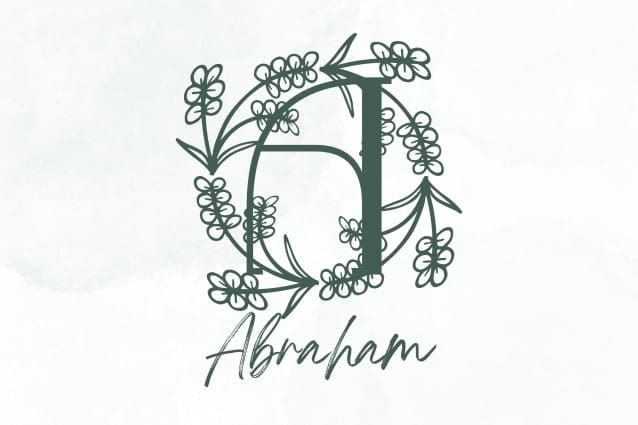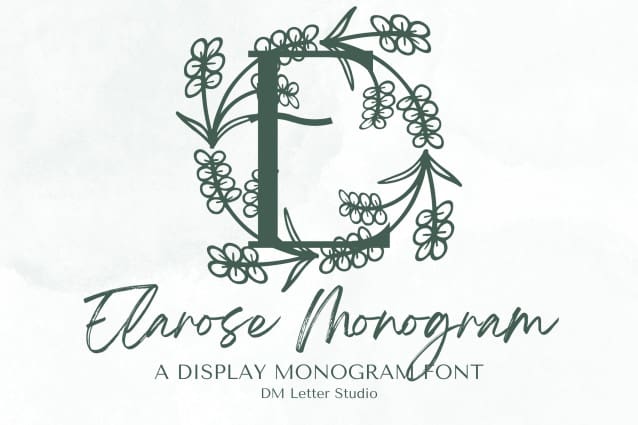
Elarose Monogram Font
Elarose Monogram Font is a graceful serif font designed with timeless elegance and refined details. Every uppercase letter carries a sense of classic sophistication, making this monogram font perfect for projects that demand a luxurious and bespoke feel. Whether you’re crafting logos, wedding invitations, upscale packaging, or personalized gifts, Elarose Monogram brings a polished look to every design.
Inspired by vintage letterpress aesthetics and modern minimalism, Elarose blends both worlds seamlessly. The clean lines of the serif structure meet subtle ornamental touches, creating a monogram style that feels both regal and contemporary. Ideal for use with Cricut and other cutting machines, Elarose shines in nameplate designs, wedding signage, stationery, embroidery, and engraved keepsakes.
Elarose isn’t just a font—it’s a statement. Use it to elevate your branding, create unforgettable wedding assets, or craft thoughtful personalized gifts. Its clean serif form and luxurious feel make it a designer’s favorite for elegant monogram creation.
Whether you’re working on a romantic wedding suite or a luxury brand identity, Elarose Monogram provides a balanced, professional result that speaks to refined taste.